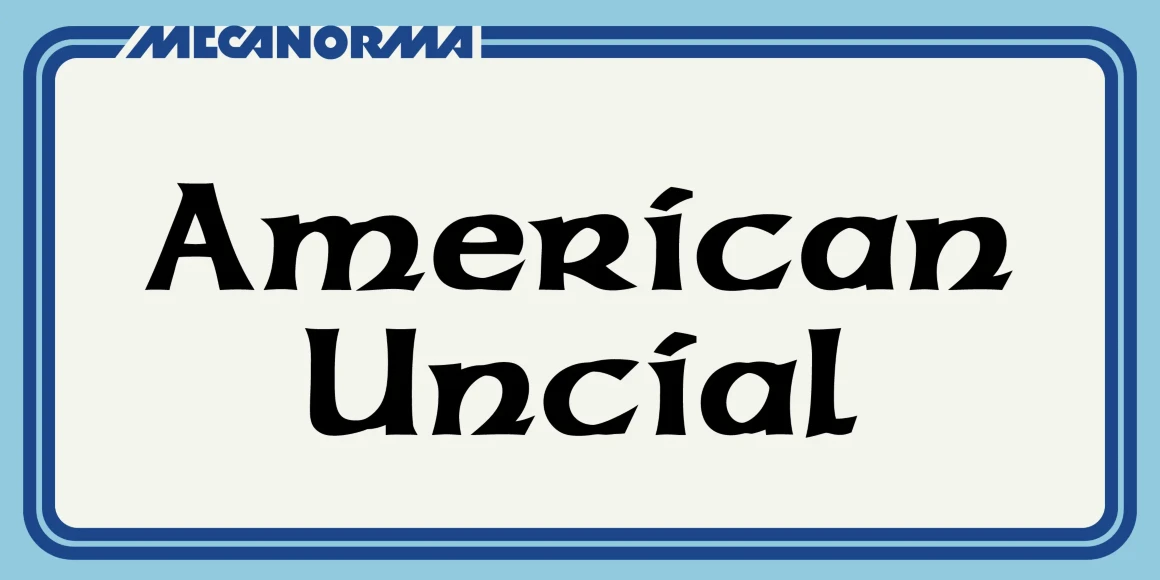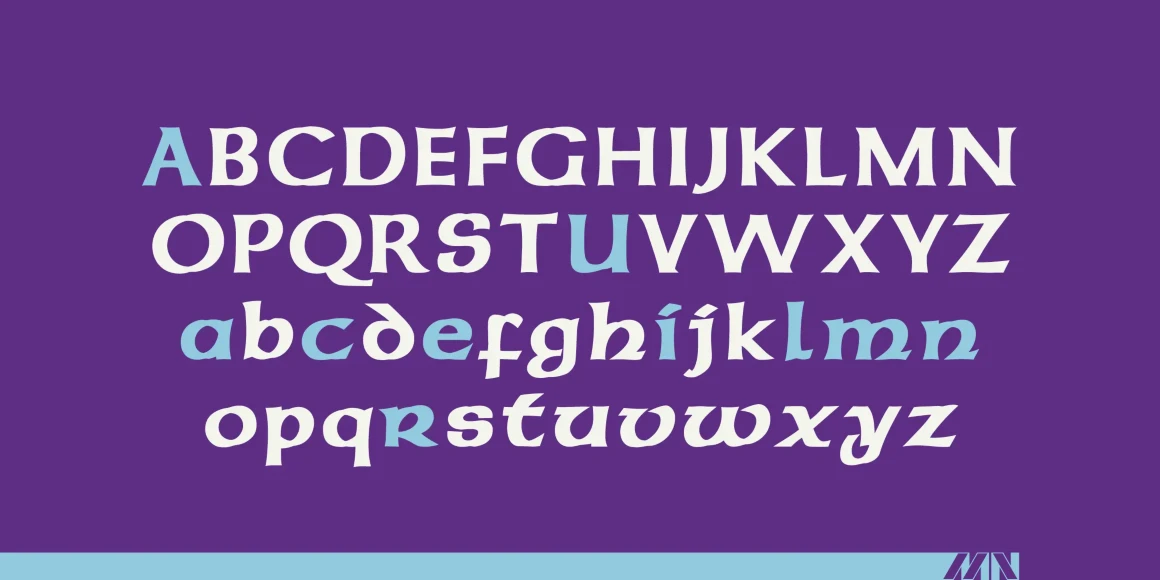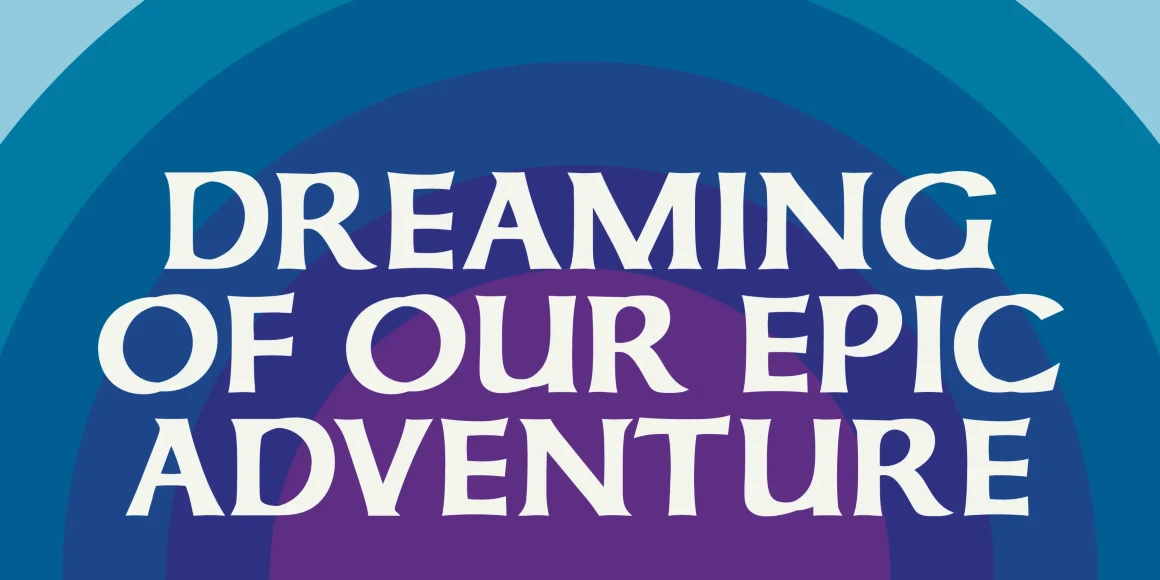
American Uncial
American Uncial is a distinctive display typeface inspired by uncial and calligraphic letterforms. Its broad, sculpted shapes, irregular proportions, and lively curves give the alphabet an expressive, handcrafted rhythm. It feels historic without being formal, making it especially suited to titles, posters, and other settings where the lettering itself should carry personality.
Designed by Victor Hammer